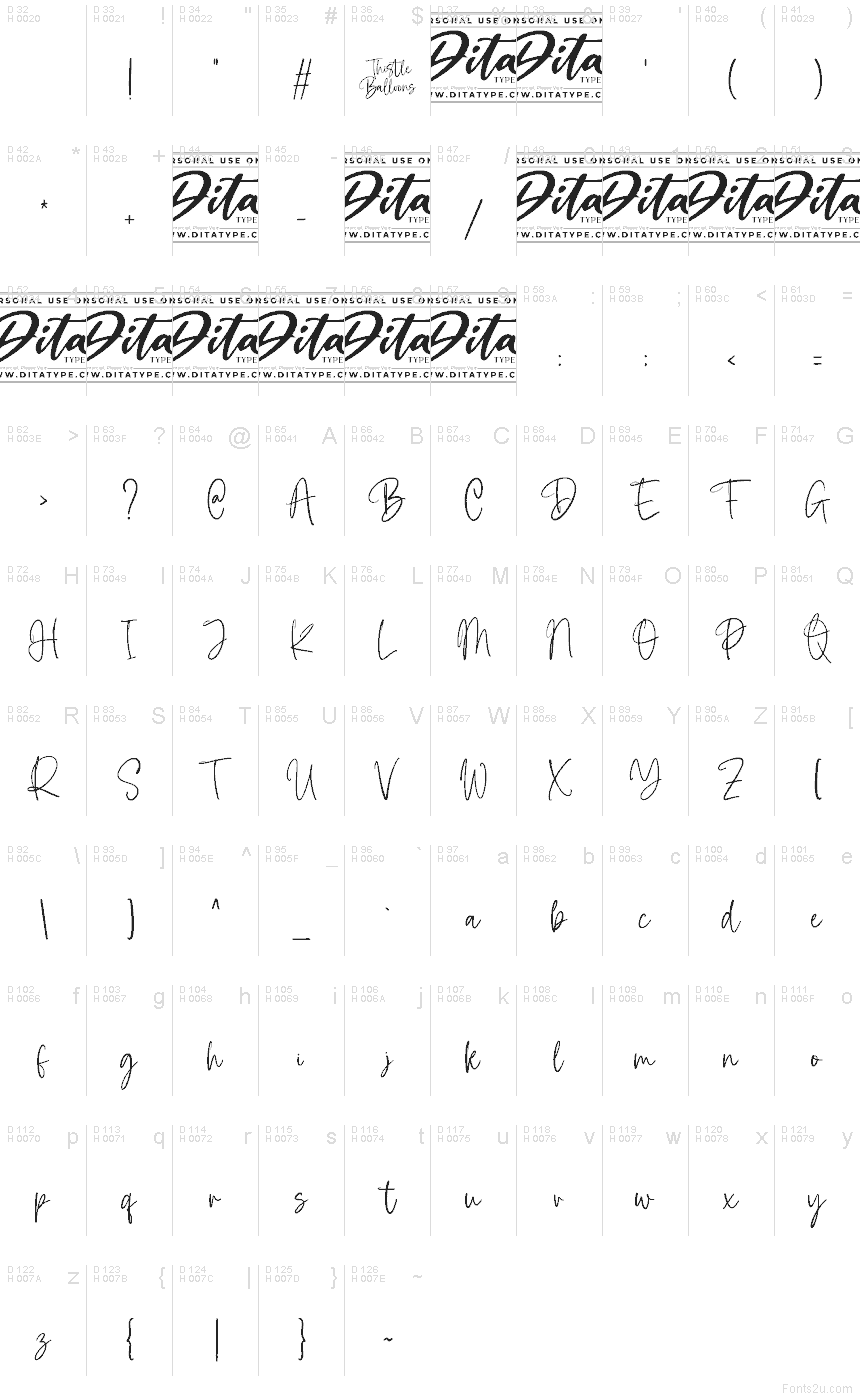
Thistle Balloons
Thistle Balloons font is a unique free handwritten font by Ditatype with all the characteristics of thistle and balloons combined. This special combination puts together curling strokes that reach deep into your artistic soul. Its expressive flow makes each character full of life with a warm inviting aesthetic and an artistic personal touch.
The light weight font is ideal for event designs like wedding invitations, birthday cards, shower invites, and engagement parties. Other use cases would be packaging design, branding posters, children’s products packaging, cups and mugs printing, logo creation, magazine covers/titles among others.